Good Type Foundry
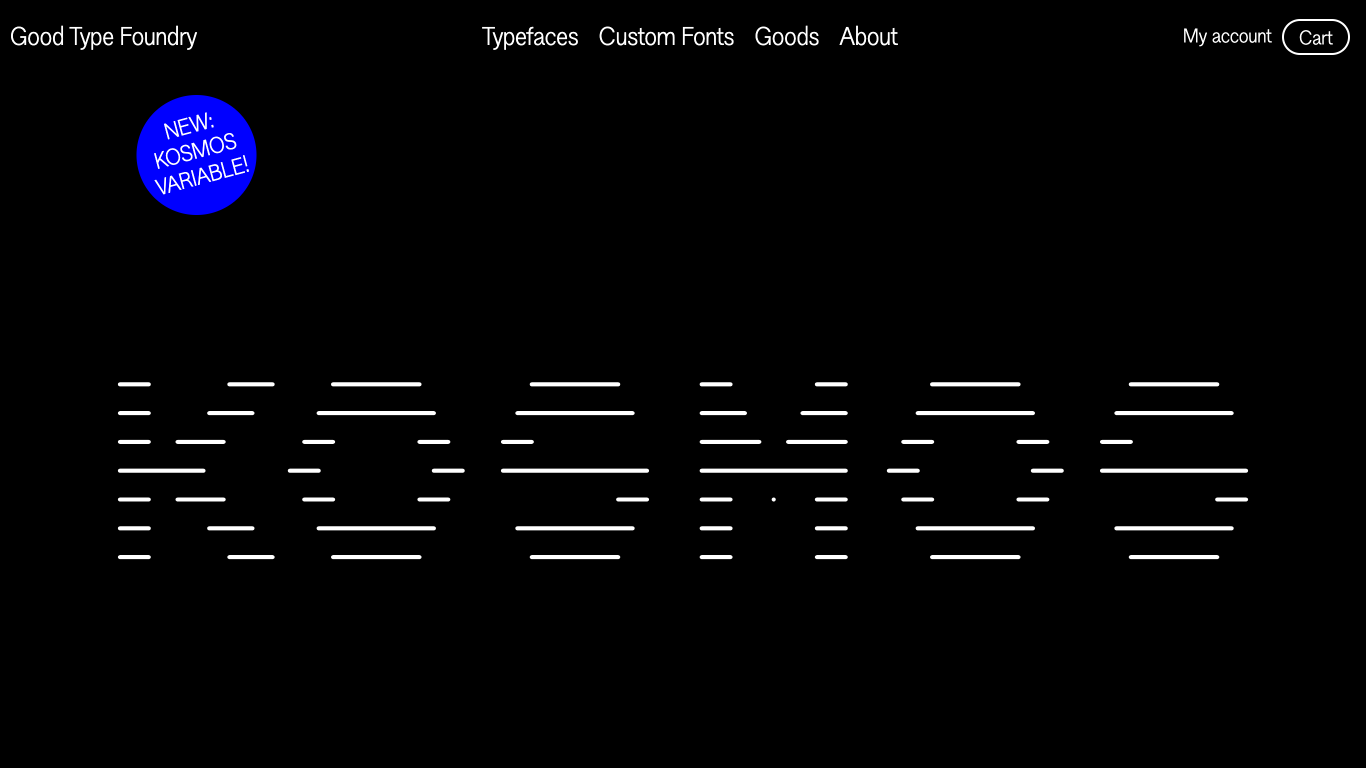
Norway
2014-15
Good Type Foundry is an award-winning type foundry based in Oslo, Norway, founded between 2014 and 2015 by Kenneth Knutsen. The foundry is dedicated to creating contemporary typefaces characterized by meticulous attention to detail and clean aesthetics. Notable typefaces include Kosmos, Adieu, Agentur, and Byrd. Good Type Foundry has collaborated with clients such as Beyoncé, London Fashion Week, and Pentagram.